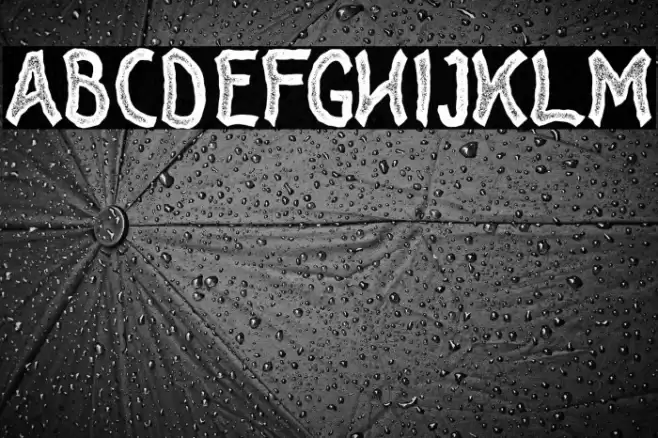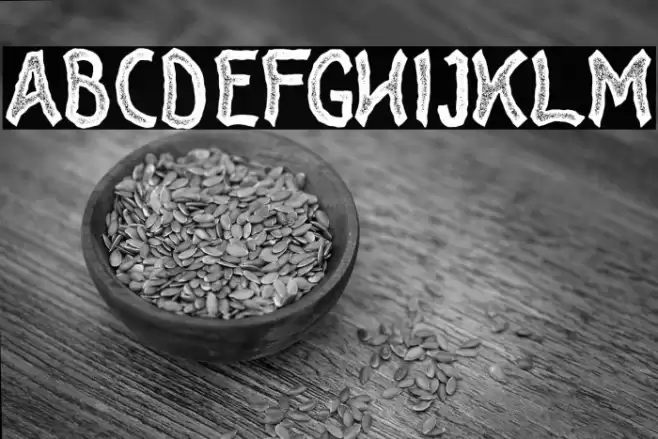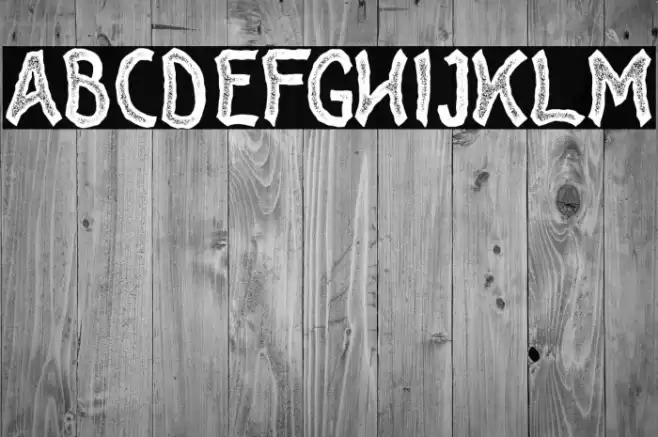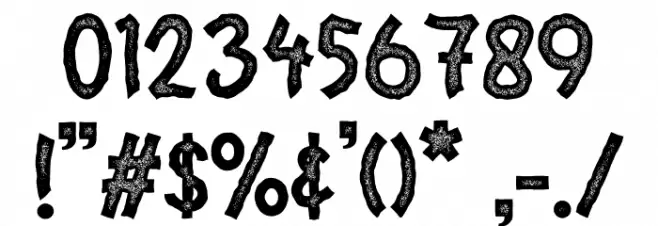
Forestside Font
Forestside Description
This font features a rugged, textured appearance reminiscent of natural elements like bark or stone. The characters are bold and uneven, giving a hand-carved, organic feel. The uppercase and lowercase letters maintain a consistent style, with jagged edges and a slightly irregular form that adds to its rustic charm. Numbers and special characters follow the same aesthetic, ensuring a cohesive look across all glyphs. This font is ideal for projects that require a natural, earthy touch, such as outdoor event posters, eco-friendly product packaging, or artisanal branding.
A rugged, textured font with a hand-carved, organic feel from Uncategorized fonts.
- Font: Forestside
- Proposed Projects: Outdoor event posters, eco-friendly product packaging, artisanal branding.
- Overall Style: Rustic, Organic